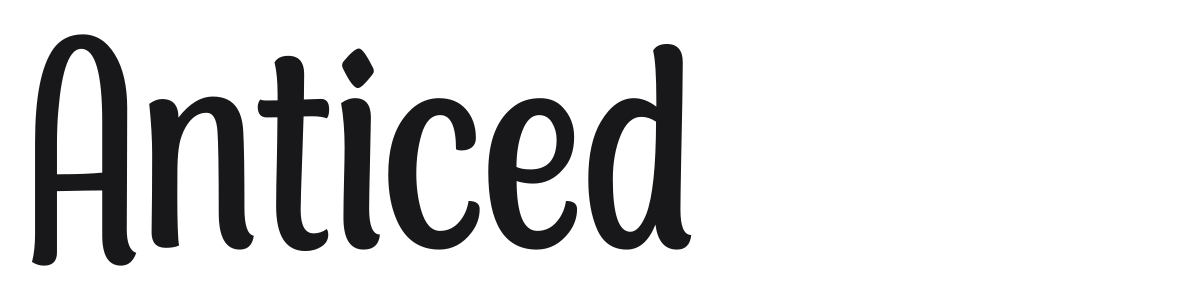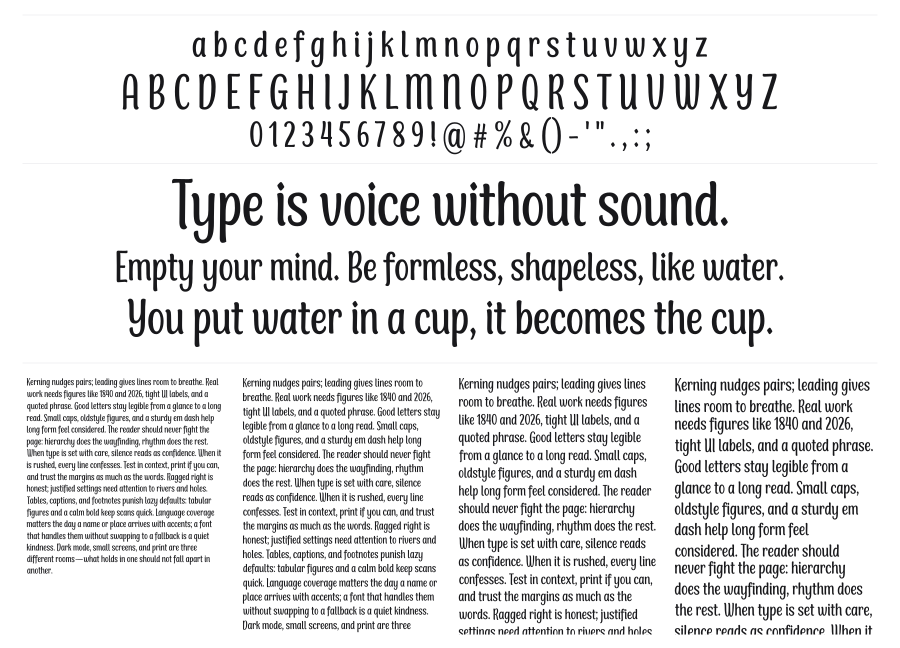
Anticed
by 7NTypes · Website
Anticed is a bold humanist sans with a warm, slightly calligraphic touch that keeps it from feeling stiff. The soft terminals and gently tapered strokes give it an artisan quality that works well on packaging, logotypes, and editorial headlines. Designed by Jasman Nazara and Situjuh Nazara of 7NTypes in 2020.